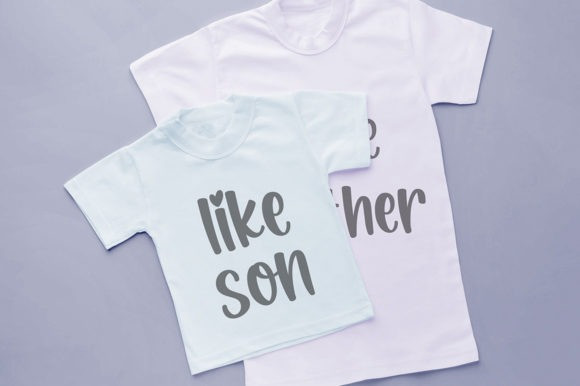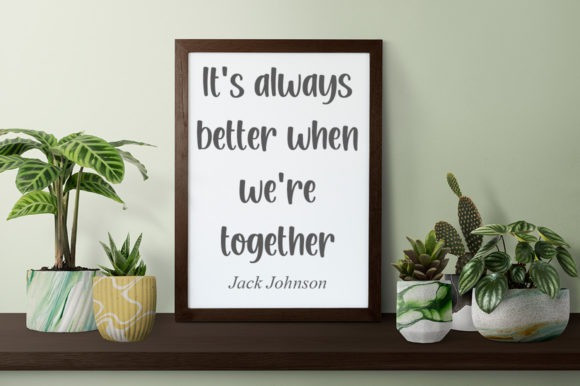
Memories With You Font
Memories with You Script Font is a cute and simple-lettered display font, perfect for all the chalkboard quotes and teaching materials you wish to create! Its authentic look will add a personal and realistic feel to your designs. Fall in love with it and bring your projects to the highest levels!